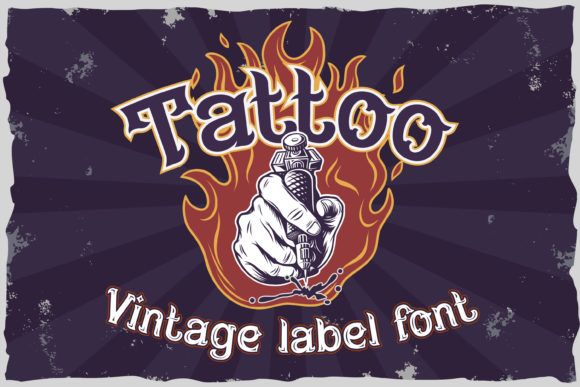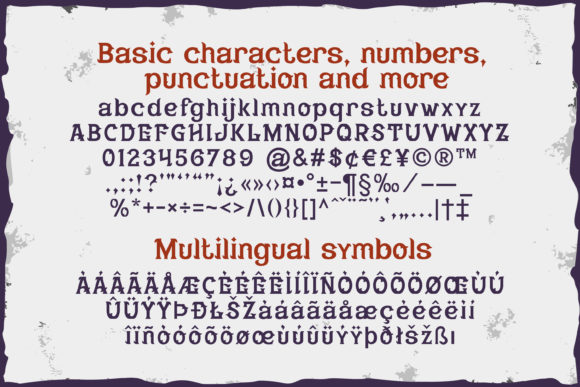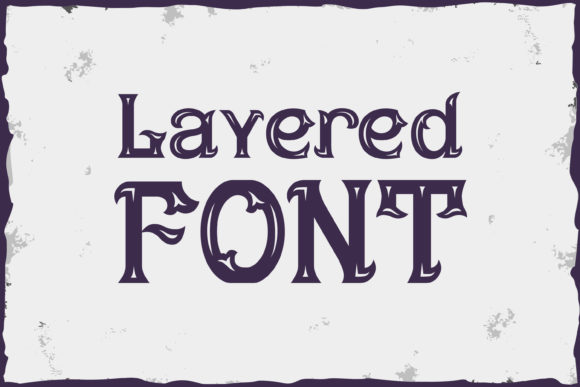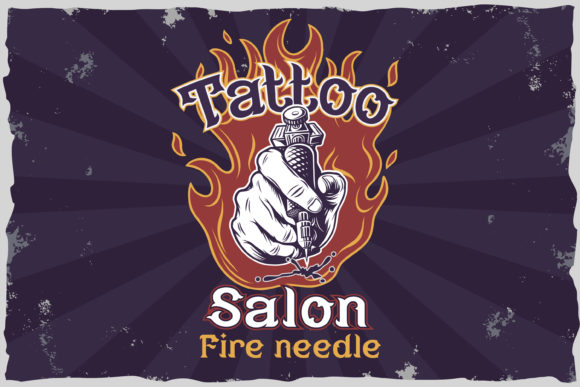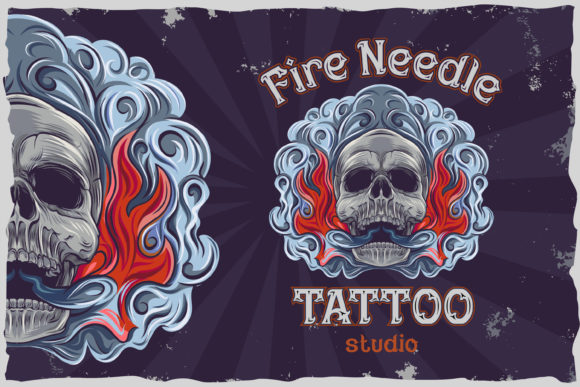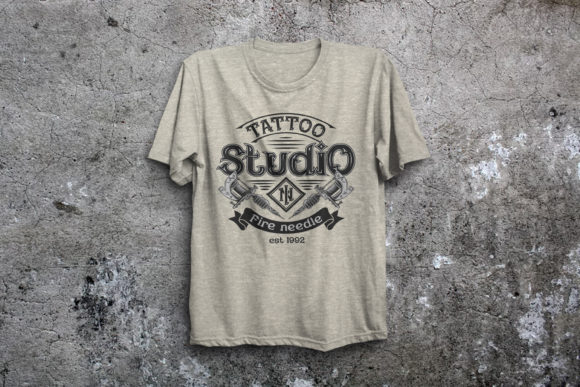
The Fire Needle Font: A Bold and Beautiful Addition to Your Design Arsenal
I’ll never forget the time I was working on a project for a client who wanted a bold, western-inspired design. I had spent hours scouring the internet for the perfect font, but nothing seemed quite right. That was until I stumbled upon the Fire Needle font. It was love at first sight! 😍 The bold, rugged letters seemed to scream “western display font” and I knew I had found the one. In this article, I’ll share my experience with the Fire Needle font, including what I love about it, some practical tips on how to use it, and a few similar fonts you might enjoy.
An Honest Review of Fire Needle Font
So, what makes the Fire Needle font so special? Let’s dive in and take a closer look.
What I Love About Fire Needle Font
- ✨ Bold and eye-catching: The Fire Needle font is perfect for making a statement. Its bold letters are sure to grab attention and add a touch of western flair to your designs.
- ✅ Highly versatile: Whether you’re designing a logo, a poster, or a social media graphic, the Fire Needle font is a great choice. It’s perfect for a wide range of design projects.
- 🎨 Endless variations: With its OpenType features and glyphs, the Fire Needle font offers endless possibilities for customization. You can create unique and interesting variations to suit your design needs.
While the Fire Needle font is an amazing addition to any design arsenal, there are a few things to keep in mind:
- 🤔 Legibility at small sizes: Like many bold fonts, the Fire Needle font can be a bit tricky to read at small sizes. Make sure to test it out at different sizes to ensure it’s legible for your design.
- ⚠️ Limited use in body text: While the Fire Needle font is perfect for headlines and titles, it’s not the best choice for body text. Its bold letters can be overwhelming for longer blocks of text.
- Rodeo: This bold, western-inspired font is perfect for making a statement. Its rugged letters are similar to Fire Needle, but with a slightly more distressed look.
- Wild West: This font is a great alternative to Fire Needle if you’re looking for something a bit more playful. Its bold letters have a fun, hand-drawn feel that’s perfect for designs that need a bit of personality.
- Buckaroo: This font is similar to Fire Needle, but with a slightly more elegant feel. Its bold letters are perfect for designs that need a touch of sophistication.
- Outlaw: This font is a great choice if you’re looking for something a bit more edgy. Its bold letters have a rugged, outlaw-inspired feel that’s perfect for designs that need a bit of attitude.
The Backstory Behind Fire Needle Font
The Fire Needle font was designed by a team of creatives who wanted to create a bold, western-inspired font that would add a touch of rugged elegance to any design. The font’s designer was inspired by the wild west and the idea of a bold, fearless spirit. The result is a font that’s perfect for designs that need a bit of attitude and personality.
| Is the Fire Needle font suitable for body text? | No, the Fire Needle font is not suitable for body text. Its bold letters are best used for headlines and titles. |